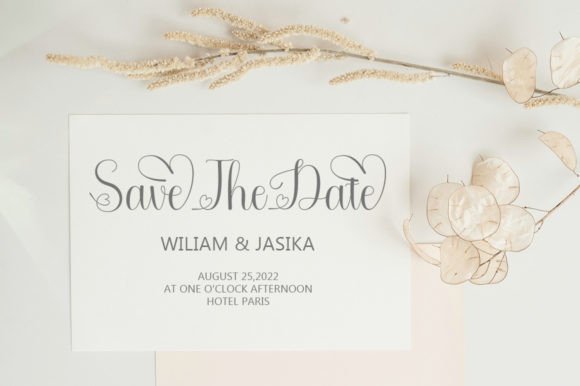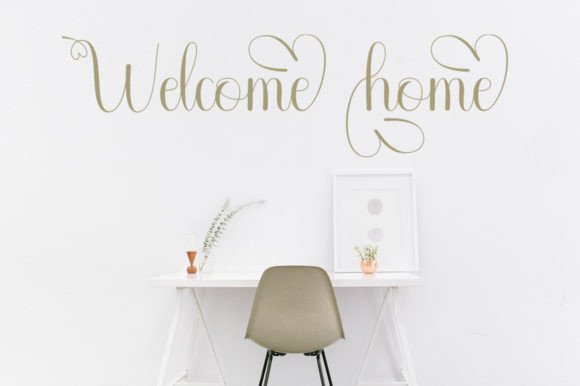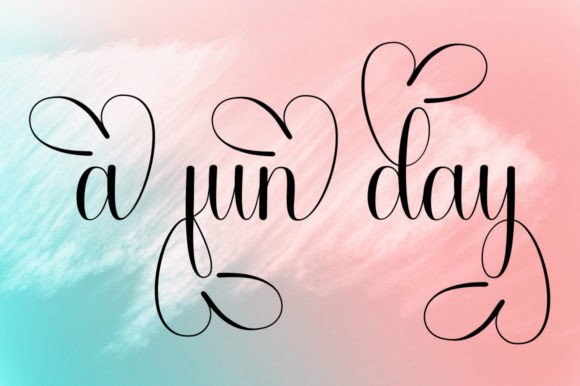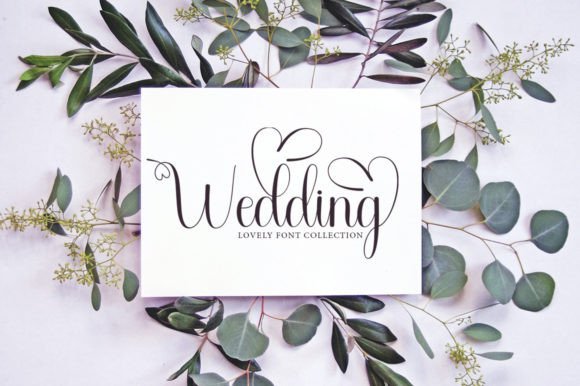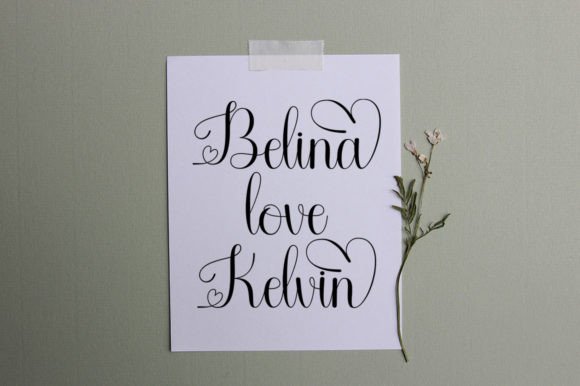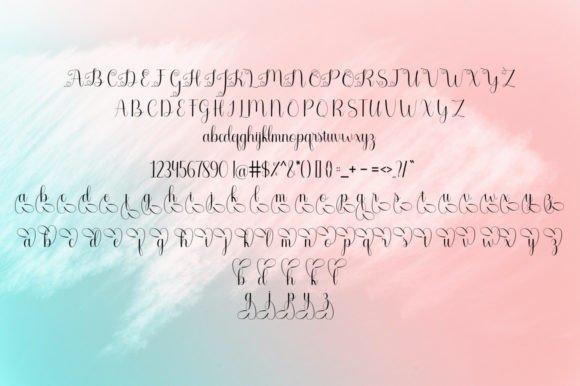
Introduction to Reylove Font
Have you ever been in a creative flow, with ideas pouring in and your imagination running wild? It’s a magical moment where anything seems possible, and the right design elements can take your project to the next level. For designers and creatives, finding the perfect font can be the difference between a good design and a great one.
That’s where the Reylove Font comes in – a dazzling and detailed script font that’s sure to add a touch of romance and elegance to any project. Whether you’re working on a love letter, wedding invitation, or design concept, this font is a valuable resource that will elevate your creative project.
Key Features of Reylove Font
- Unique and Creative Typography: The Reylove Font is designed to add a touch of elegance and sophistication to any creative project, making it an ideal design resource for artists and designers.
- High-Quality Design: This font features high-quality design elements, ensuring that it looks great on any device with a transparent background, allowing for seamless integration with your design.
- High Resolution: The Reylove Font is designed at a high resolution of 300 DPI, making it suitable for use in large-scale designs, such as billboards, posters, and other marketing materials.
- Perfect for Digital Projects: With its sleek and modern design, the Reylove Font is ideal for digital projects, including websites, social media graphics, and mobile app designs.
Honest Review: Reylove Font
I recently came across the Reylove Font, and I must say it’s a lovely addition to any designer’s toolkit. With a transparent background, this font is perfect for creative projects where you want to add a touch of elegance and sophistication.
What works well with the Reylove Font is its high-quality design, which makes it suitable for a wide range of applications, from web design to print materials. The font’s clean and modern lines give it a timeless appeal that will never go out of style.
Some of the benefits of using the Reylove Font include:
- Highly customizable, allowing you to tailor the font to your specific needs.
- Works well in a variety of settings, from headings to body text.
⚠️ One potential limitation of the Reylove Font is its limited character set, which may not be ideal for projects that require a large number of special characters.
Overall, I’m impressed with the Reylove Font, and I would definitely recommend it to fellow designers looking for a high-quality, free design resource. With its transparent background and modern design, it’s a great addition to any creative project.